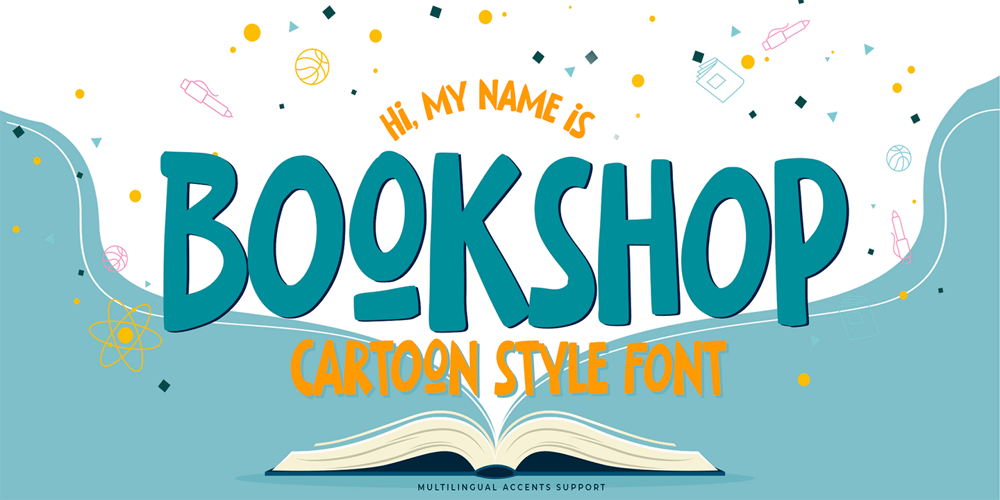
Bookshop
Bookshop font
Bookshop Font Family was designed by Abdul Malik Wisnu, Anang Fibriyanto and published by Gassstype. Bookshop contains 1 styles and family package options. Hello Everyone, introduce our new product Font Bookshop This Is Cartoon Style Font.This is a Textured Natural Style and classy style with a clear style and dramatic movement.This font Bookshop is great for your next creative project such as logos, printed quotes, invitations, cards, product packaging.You can activate 5 Ligatures and 5 Alternate glyphs OpenType panel.